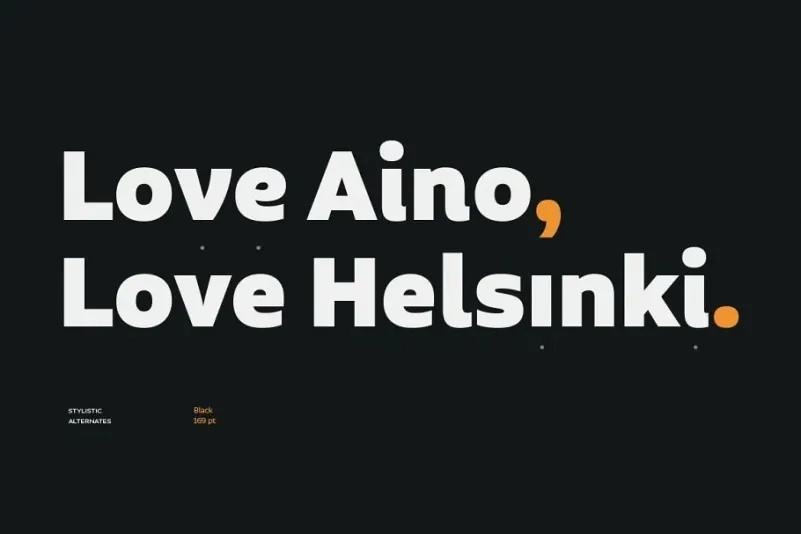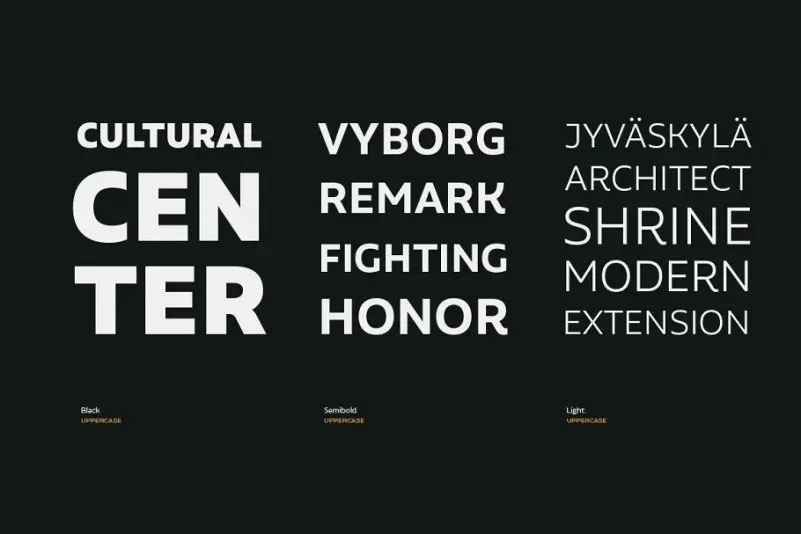
Aalto Sans Font is a modern and versatile sans-serif typeface designed by Los Andes Type, making it an excellent choice for corporate branding and identity design. With its clean yet friendly appearance, Aalto Sans strikes a balance between neutrality and contemporary style, performing well for mid-length text.
The font family includes 8 weights with matching italics and is divided into three subfamilies: Pro, Essential, and Alt Essential—offering a total of 48 different styles. The Pro version features an extended Latin character set and OpenType features such as stylistic alternates, small caps, case-sensitive forms, proportional and tabular figures, and currency symbols. Meanwhile, the Essential and Alt Essential versions are optimized for both web and corporate use.
Aalto Sans-Serif Font Family